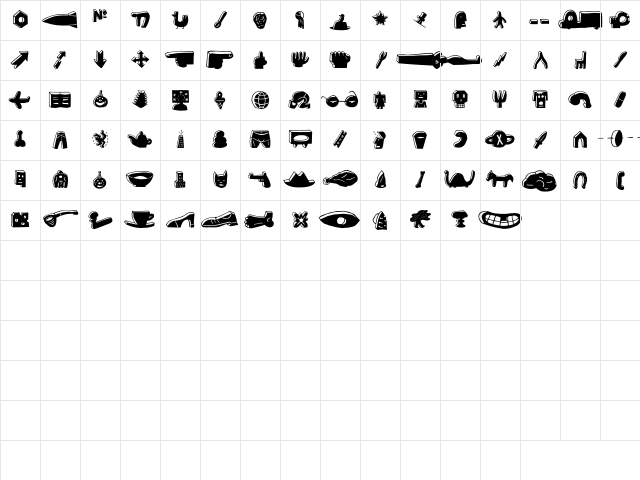
Blockhead IllustBlackFace Free Font
Blockhead IllustBlackFace
Style: IllustBlackFace
Blockhead Family
Blockhead IllustBlackFace
Design Context for Blockhead
Blockhead is a composed and adaptable typeface that performs quietly and consistently across a wide range of design contexts.